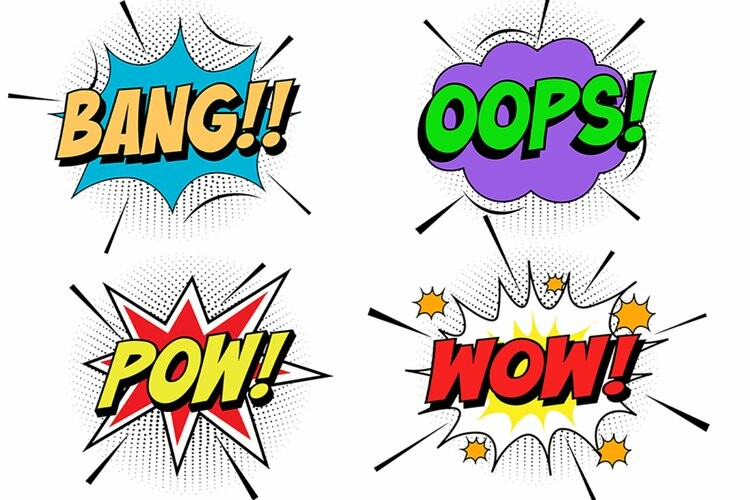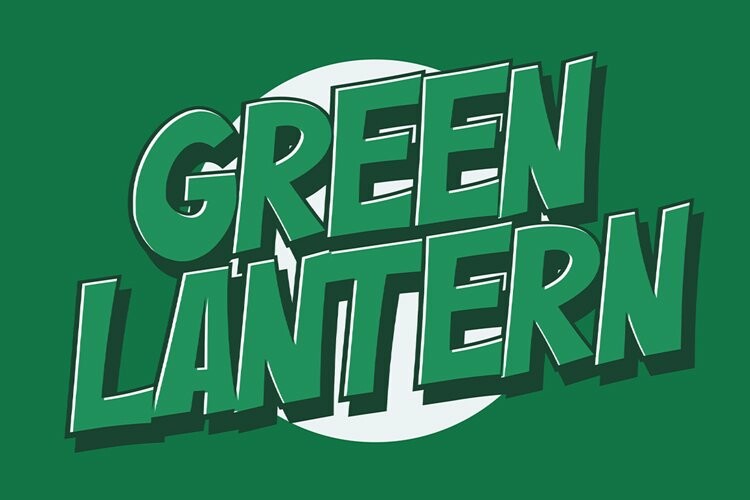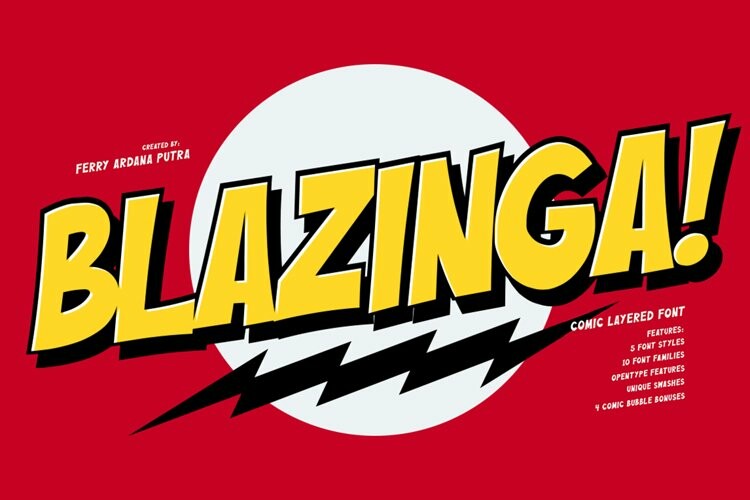
Bazinga! Font
Bazinga! FontBlazinga is a fabulous new layered comic book style font that is inspired by **Sheldon’s** favorite jokes word – Blazinga You can combine this font with any layered style included in this font family. This font is perfect for adding a comical feel to your designs, whether it is comical quotes, labels, logotype posters, t-shirts, and many more!